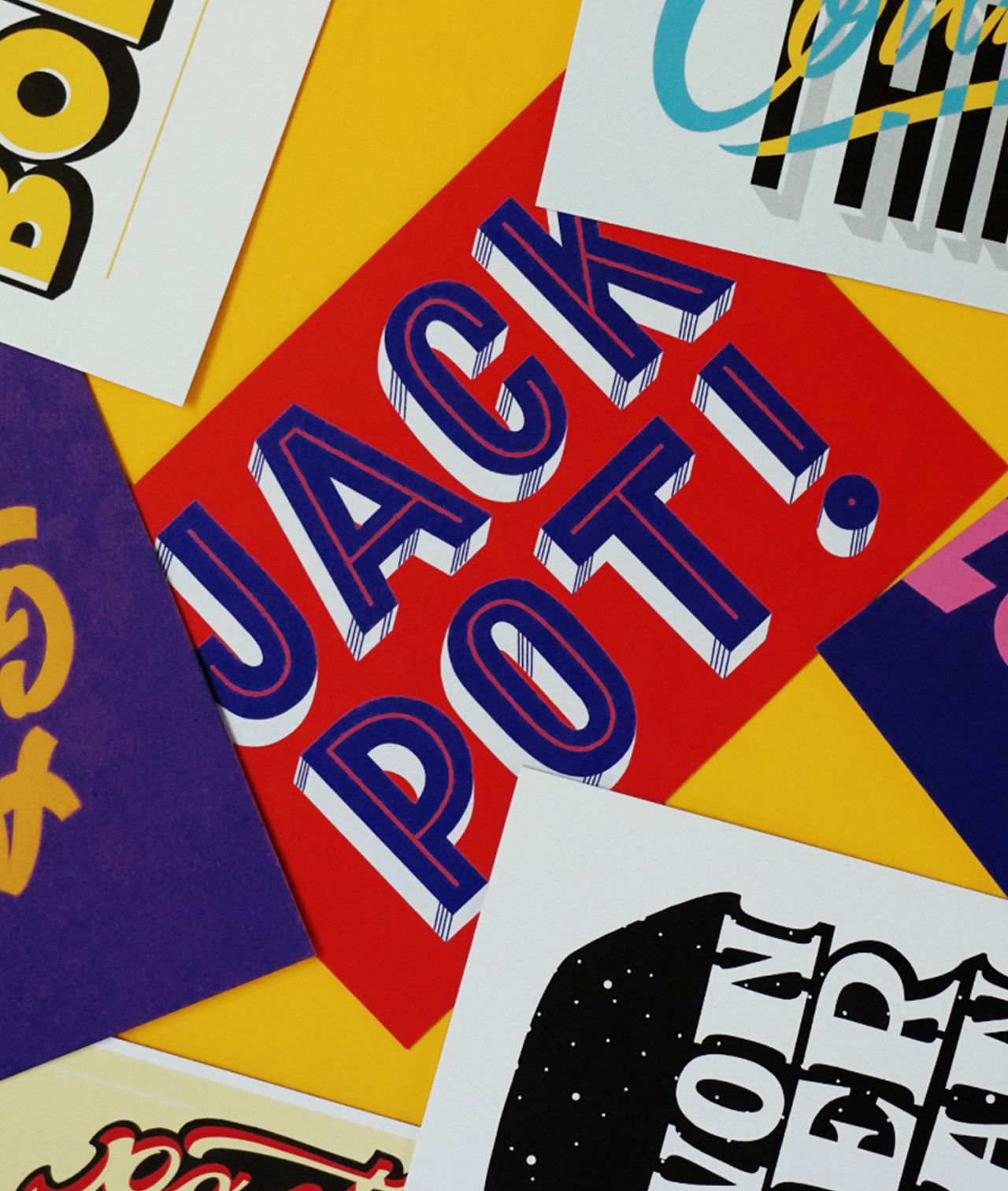
Hand-lettered postcards by Lana Hughes that celebrate a Festival of Fonts
This rather nice series of hand-lettered postcards by London-based artist Lana Hughes was created in partnership with MOO as part of its recent Festival of Fonts campaign. Each design is hand-drawn and designed in Lana's usual style, one that's bold, experimental and fun.
Specialising in hand-lettering, sign writing and typographic illustration, Lana went freelance after graduating in Graphic Design from the University for the Creative Arts in Farnham, Surrey, in 2010. Clients so far have included British Airways, O2, Tesco, Liberty of London, Lovebox festival, Southbank London, Studio Canal, Buff EU, London Zoo, Scribbler cards, Kiehl's & The Female Quotient.